Handwritten Display Bundle Vol.01
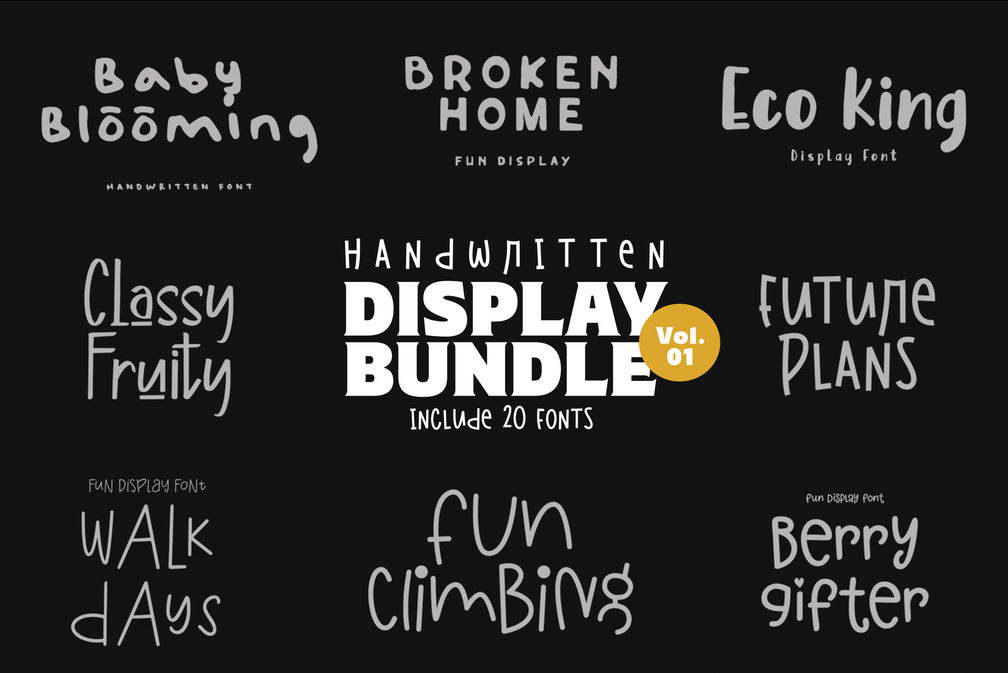
Handwritten Display Bundle Vol.01!
1. Baby Blooming
2. Balyta Kids
3. Beautiful Gift
4. Berry Gifter
5. Broken Home
6. Christmas Musical
7. Christmas Spruce
8. Classy Fruity
9. Coffee Healing
10. Conversion
11. Cristella Rose
12. Eco King
13. Fathers Silhouette
14. Forest Coffee Beans
15. Forest Glamor
16. Fun Climbing
17. Fun Frog
18. Future Plans
19. Giraffe Dream
20. Walk Days